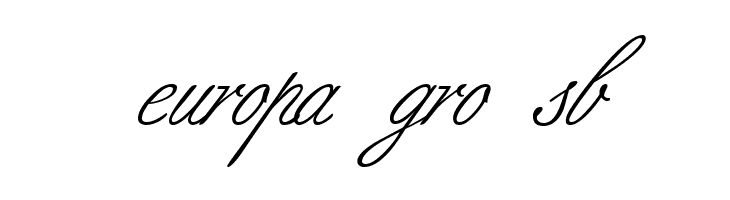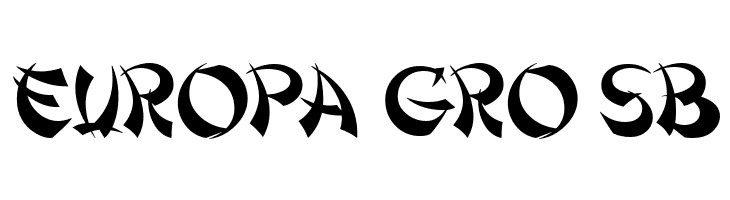
( Fonts by Christine Mauerkirchner and Rainer Grunert - PrimaFont )
An elegant script font with flowing, cursive letterforms and high contrast.
( Fonts by Christine Mauerkirchner and Rainer Grunert - PrimaFont )
A bold, decorative font with playful, swirling elements.
( Fonts by Christine Mauerkirchner and Rainer Grunert - PrimaFont )
A bold, angular font with a futuristic and edgy design.
( Fonts by Christine Mauerkirchner and Rainer Grunert - PrimaFont )
A bold, gothic-inspired font with sharp, angular edges and a dramatic style.
( Fonts by Christine Mauerkirchner and Rainer Grunert - PrimaFont )
A calligraphic font with elegant, flowing characters and a dynamic style.